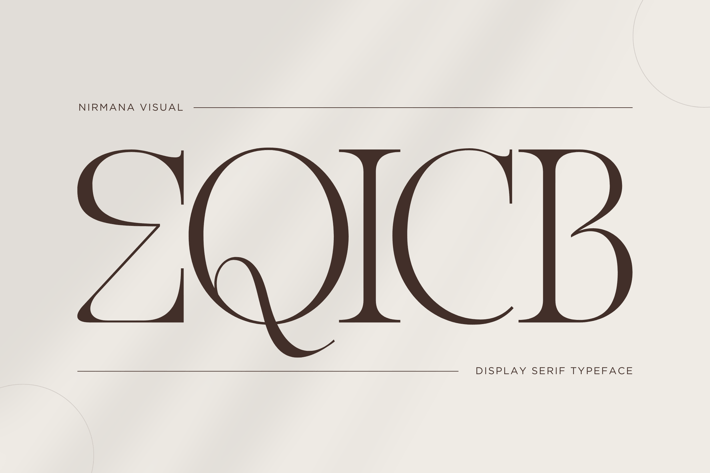
Eqicb - Branding Logo Font
Eqicb Font offers beautiful typographic harmony for a diversity of design projects, including logos & branding, social media posts, advertisements & product designs.